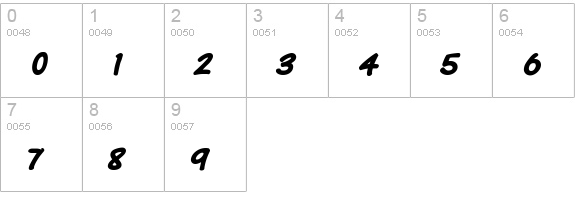
Komika Text Kaps Bold Italic is a strong, high-contrast, italic variant in the Komika typeface family \xE2\x80\x94 well suited to headlines, attention-grabbing titles, and strong calls-to-action.
Komika Text Kaps Bold Italic is a dynamic and eye-catching font that brings a touch of modernity and sophistication to any design project. Its bold and italicized style exudes confidence and creativity, making it perfect for headlines, titles, and other attention-grabbing elements. This font strikes the perfect balance between playfulness and professionalism, making it versatile for a wide range of applications. Whether you're designing a poster, logo, website, or any other creative project, Komika Text Kaps Bold Italic is sure to make a bold statement. Best of all, this font is available for free download at FontsMarket.com. So go ahead and elevate your designs with this unique and striking typeface today!